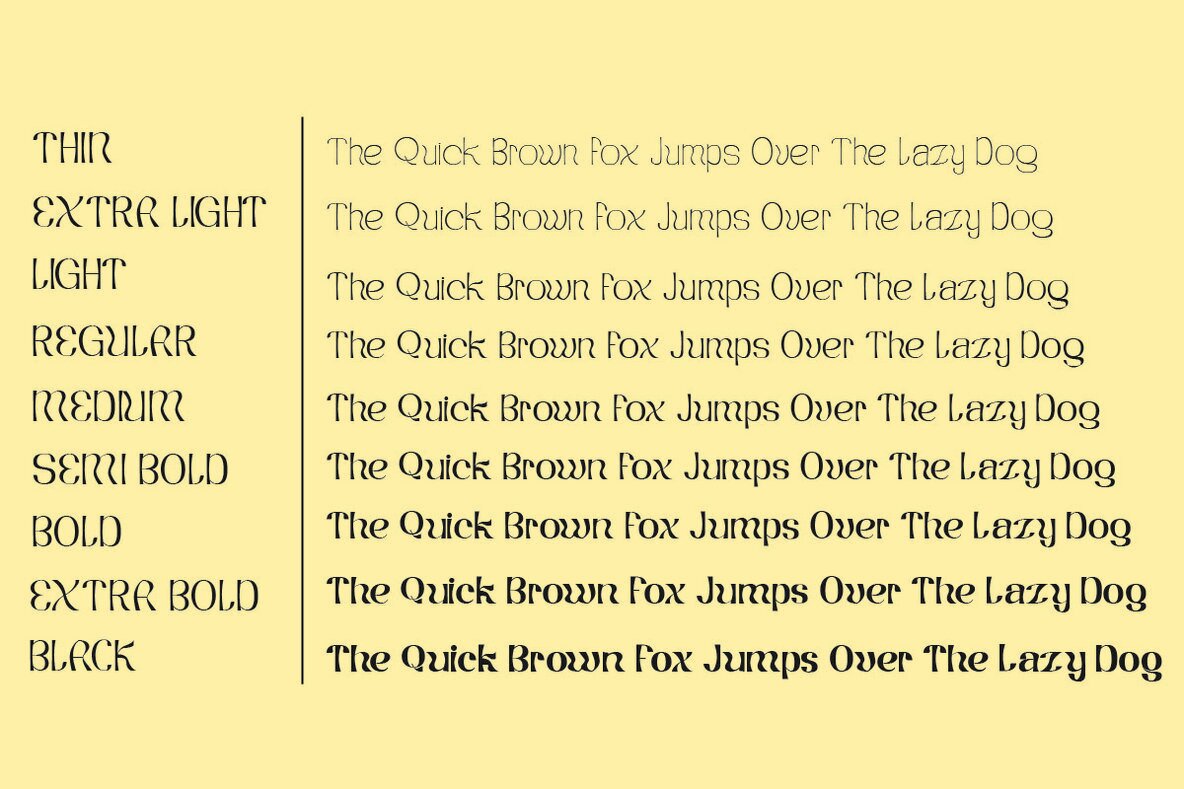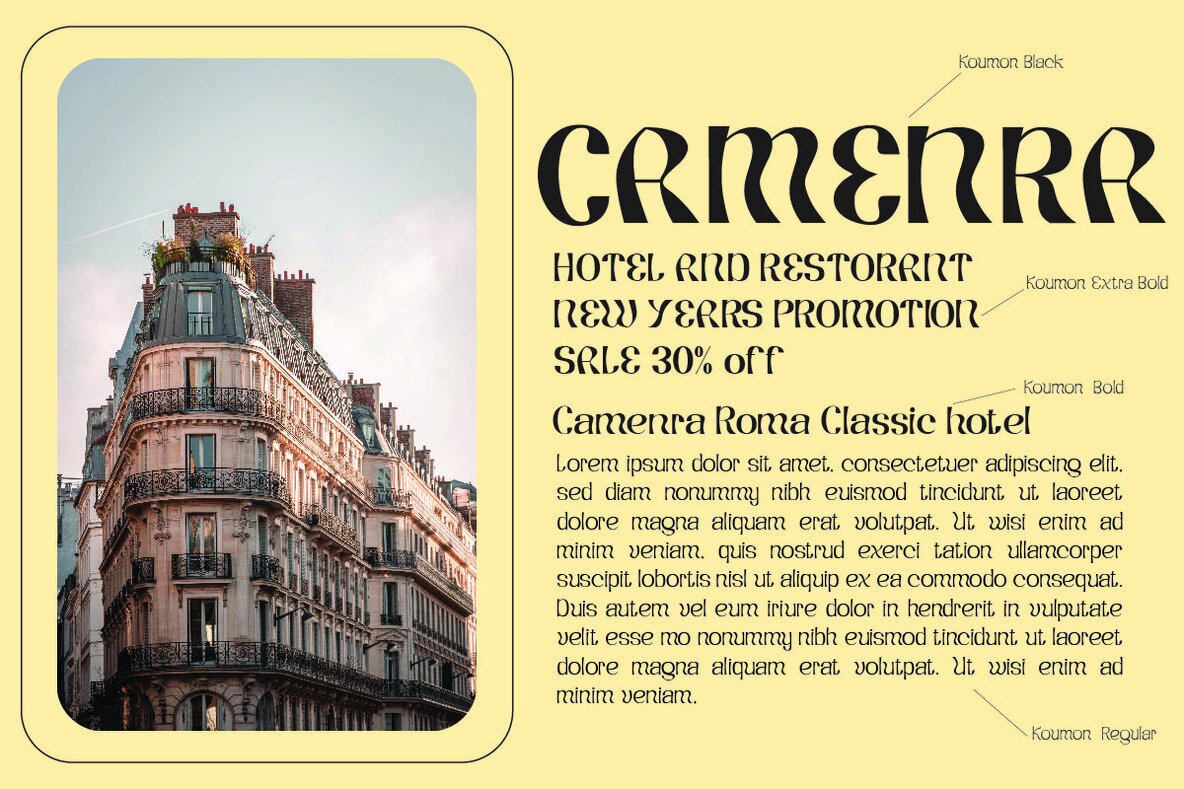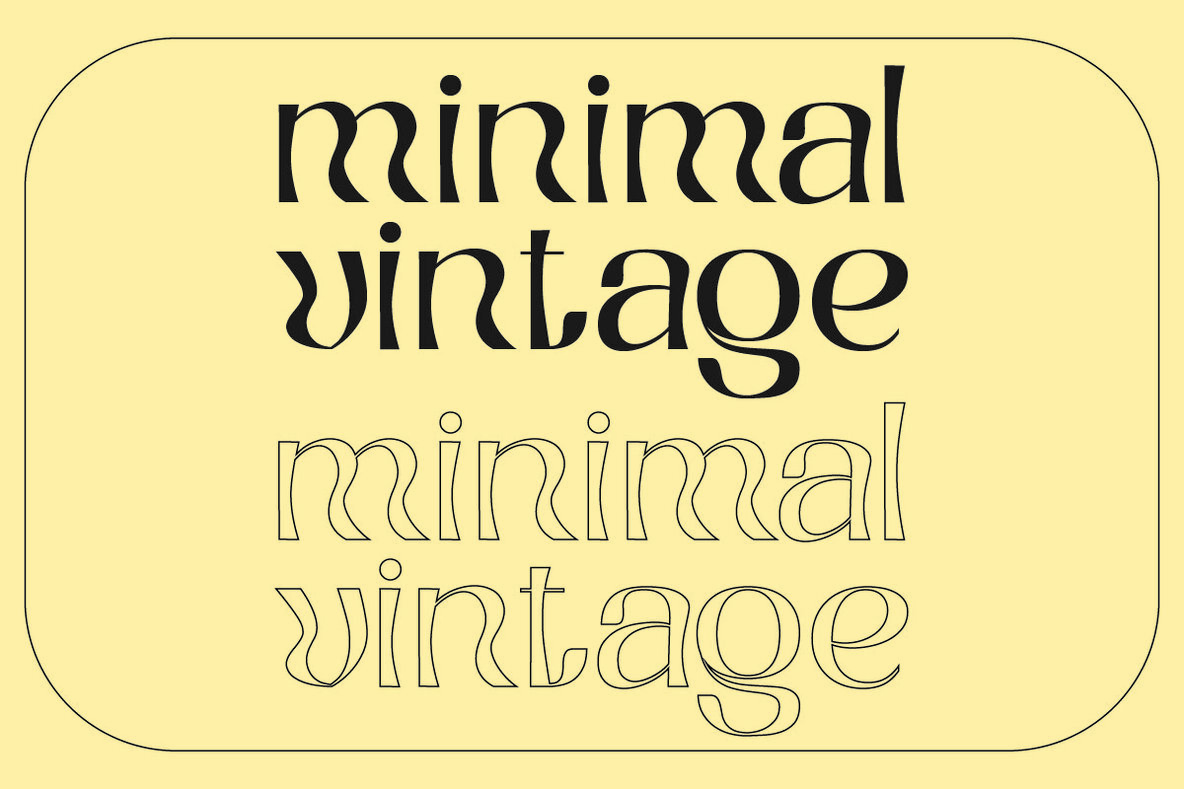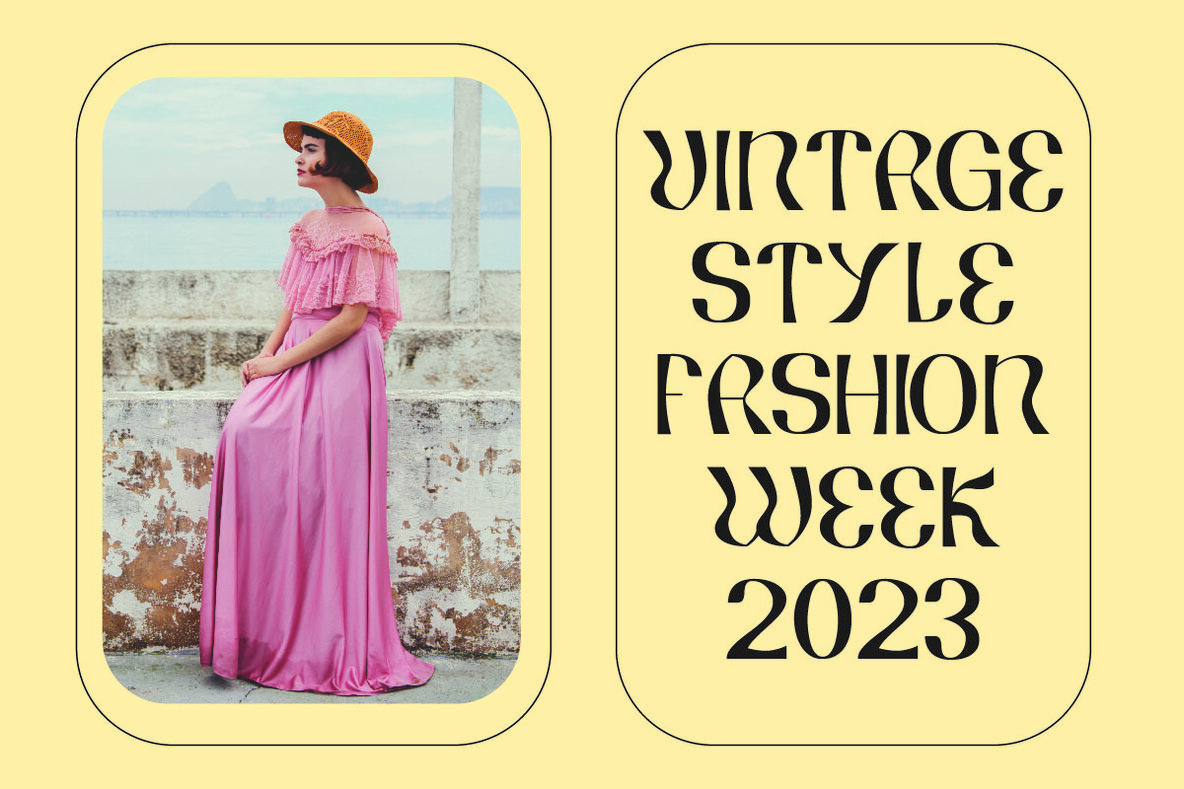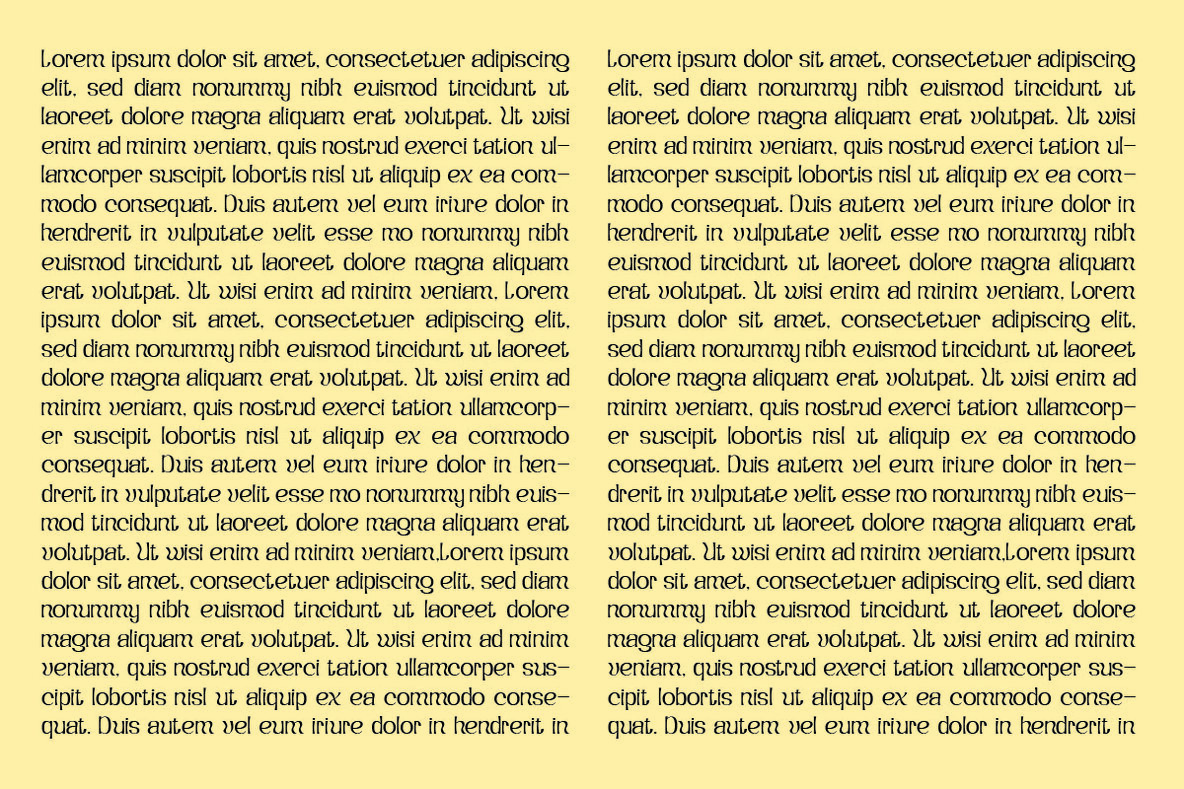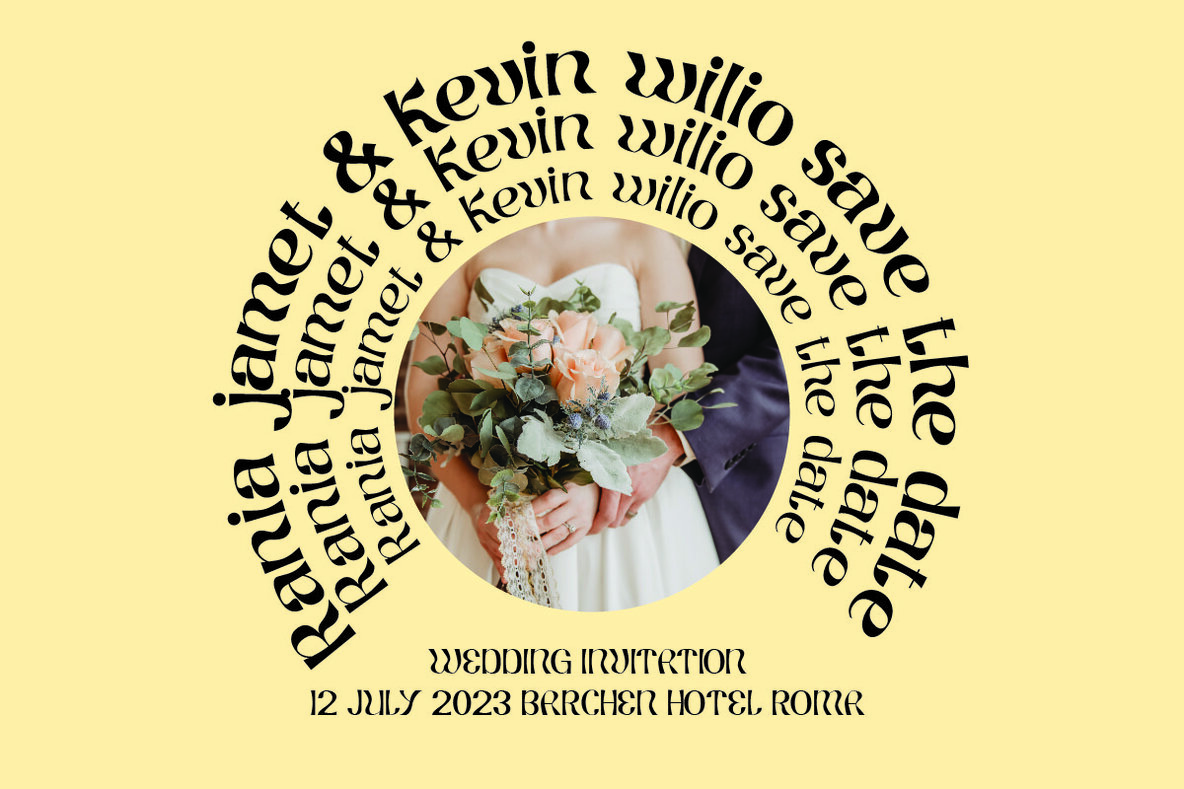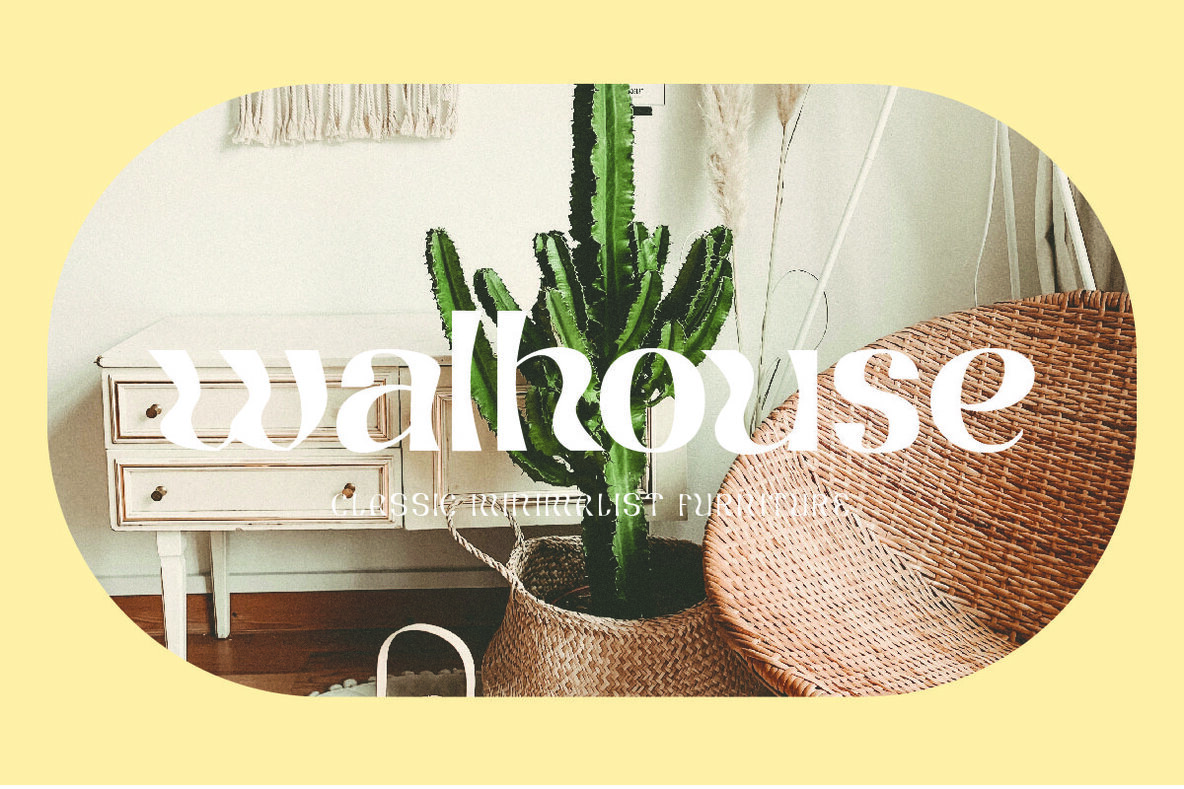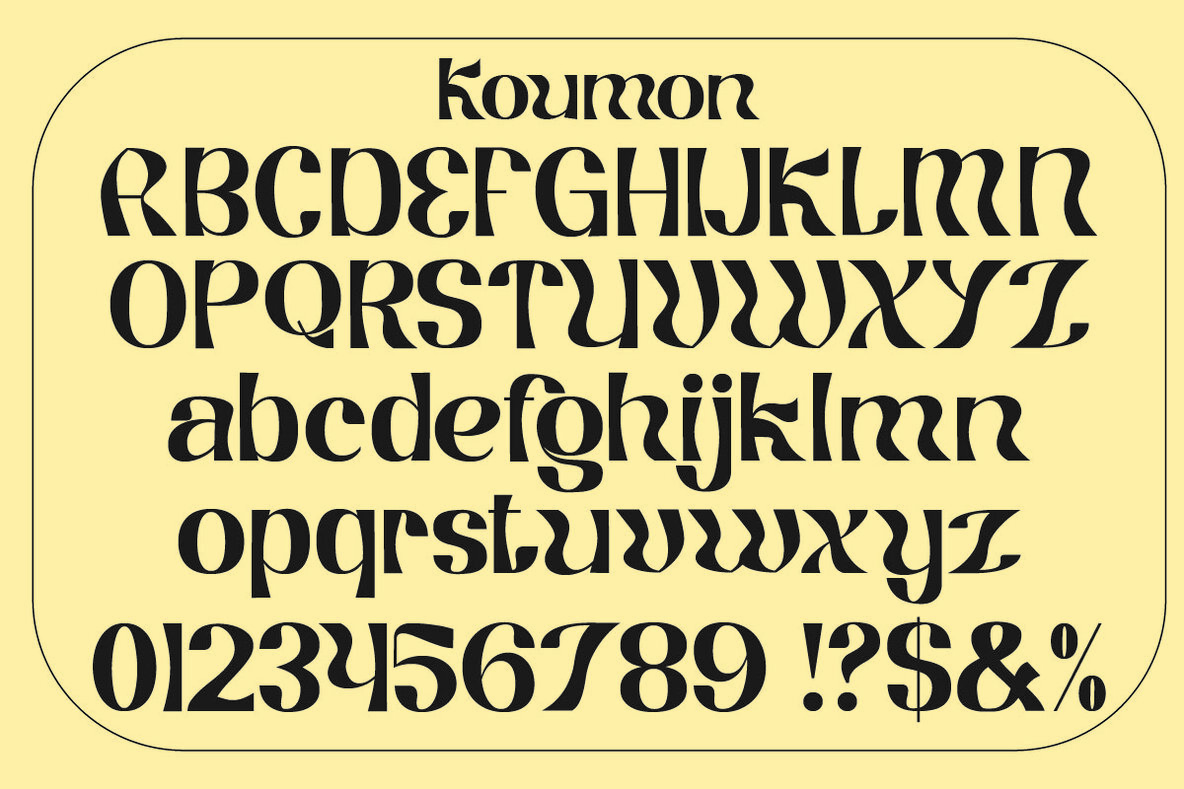
Koumon Font
Koumon emerges as a contemporary suite of display fonts designed to meet diverse design needs. With eight distinct font weights, ranging from subtle thin to bold black, Koumon offers the flexibility required for various applications. Whether it's for magazines, posters, branding projects, or online platforms, this typeface stands out for its adaptability and modern appeal.Koumon: A Modern Display Font Family